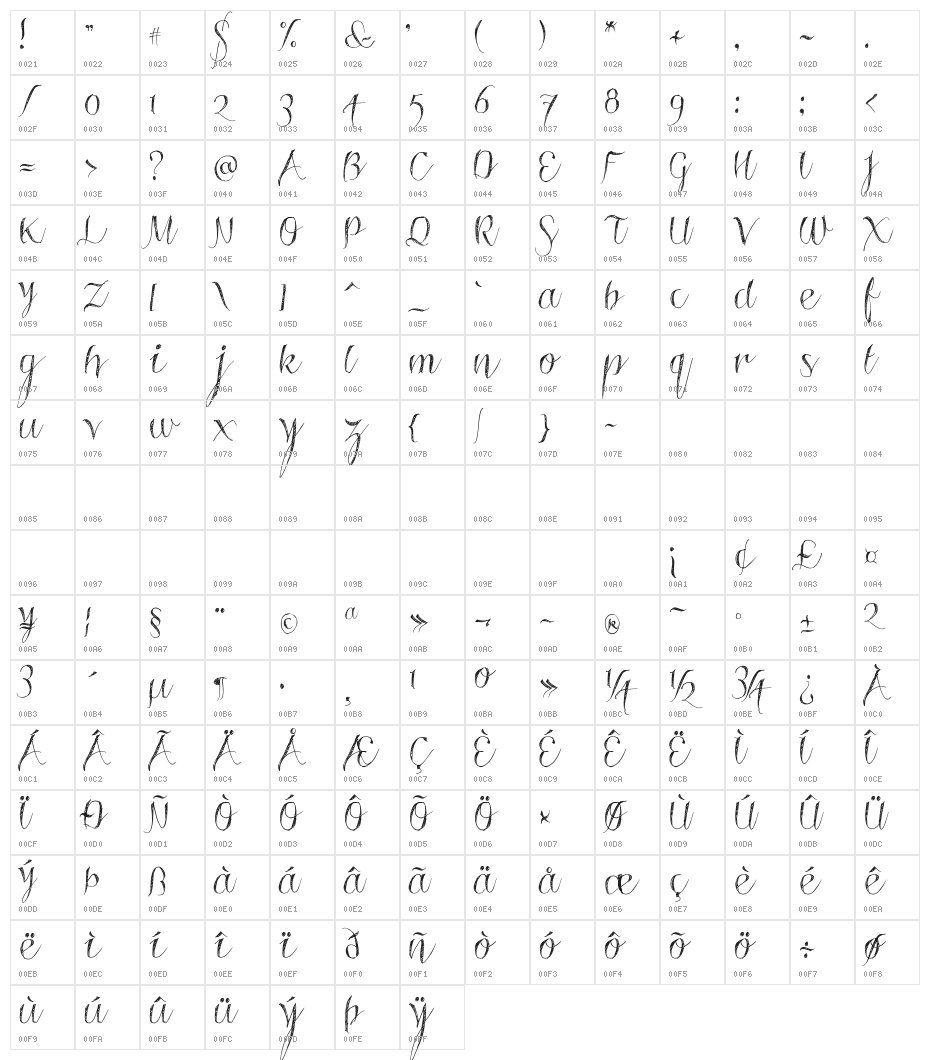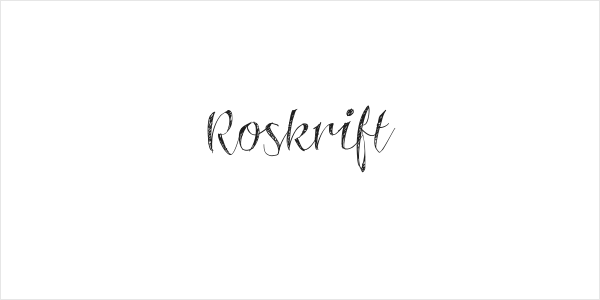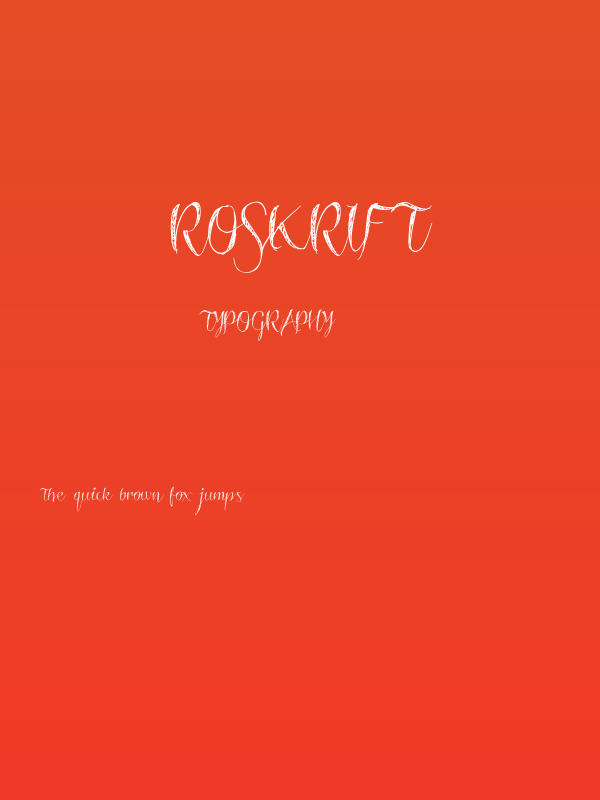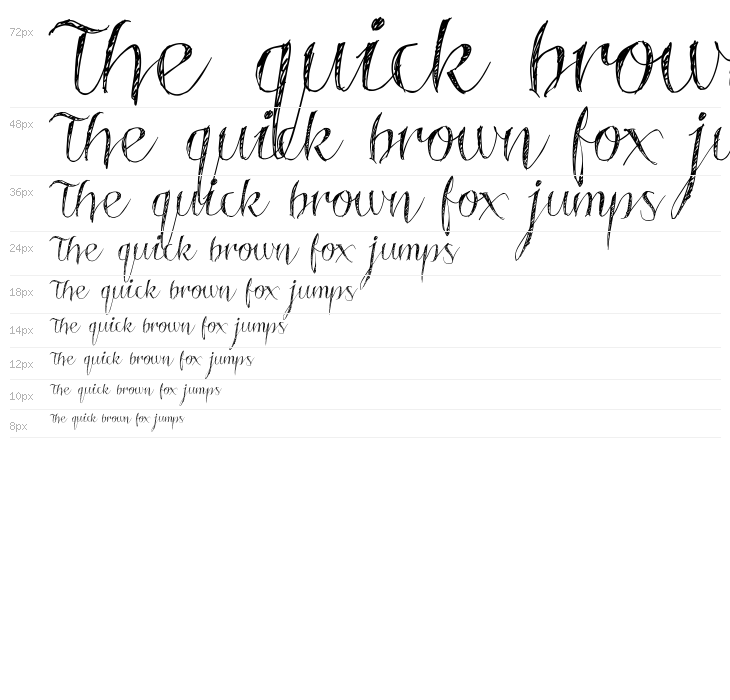
Roskrift Font
Roskrift Description
This font exudes a dynamic and expressive style, characterized by its flowing, cursive script that mimics the fluidity of handwritten calligraphy. The letters are elegantly elongated with a slight slant, giving them a sense of motion and grace. Each character is intricately detailed with a textured, sketch-like appearance, adding a unique artistic flair. The uppercase letters are bold and prominent, while the lowercase letters maintain a consistent rhythm and balance. Numbers and special characters follow the same stylistic cues, ensuring a cohesive look across all elements. This font's distinctive personality makes it stand out, ideal for creative and artistic projects.
| Proposed Projects | Ideal for wedding invitations, artistic branding, personal stationery, and creative design projects. |